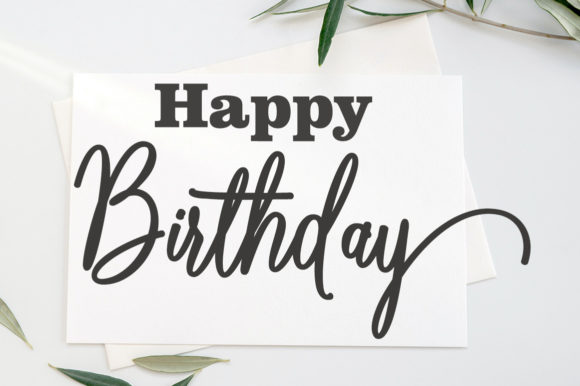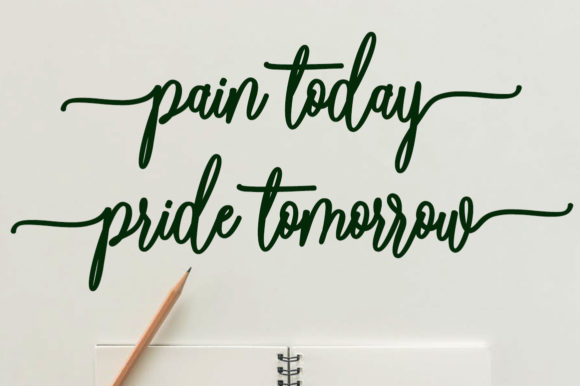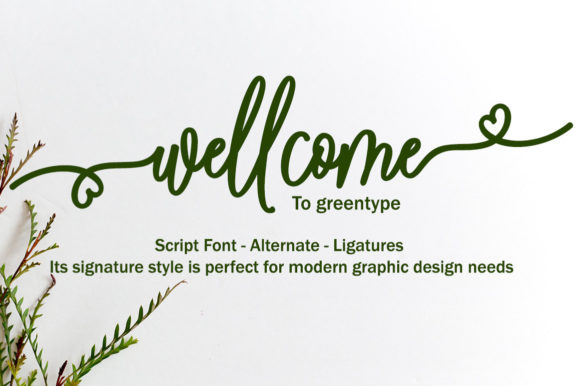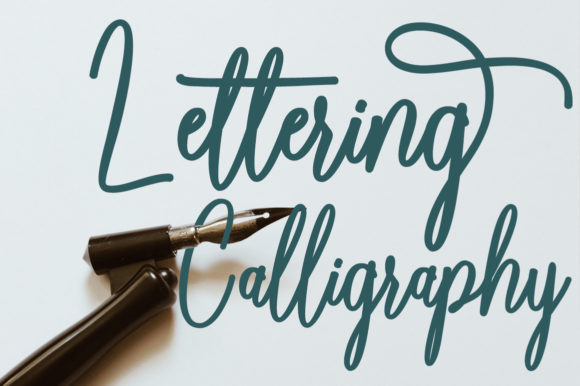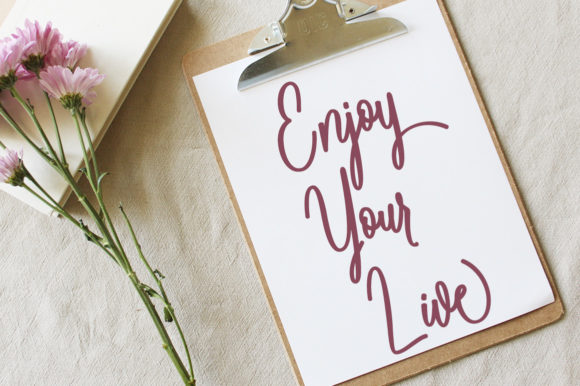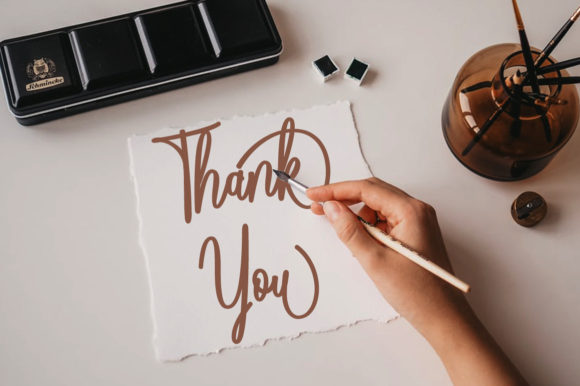
Bellasic Font
About Bellasic Font
Bellasic is a modern handwritten font that embodies readability, boldness, and style. Defined by its smooth curves, this font is a perfect choice for fashion branding or editorial designs. With its PUA encoding, accessing all the glyphs and swashes is effortless, allowing you to fully explore the font’s creative potential.
The readability of Bellasic ensures that your text remains clear and legible, even at smaller sizes. Its boldness adds a confident and impactful touch to your designs, making it suitable for various applications. Whether you’re creating logos, headlines, or editorial layouts, Bellasic brings a contemporary and stylish flair.
The smooth curves of Bellasic give it a sleek and sophisticated appearance. Each letter is crafted with precision, creating a cohesive and visually pleasing composition. The font’s modern handwriting style adds a personal and human touch, making it relatable and engaging for your audience.
Bellasic is particularly well-suited for fashion branding and editorial designs. It effortlessly complements the world of fashion with its stylish and contemporary aesthetic. Whether you’re working on lookbooks, magazine spreads, or social media graphics, Bellasic adds a touch of elegance and modernity.
In summary, Bellasic is a modern handwritten font that combines readability, boldness, and style. Its smooth curves and sleek design make it ideal for fashion branding and editorial designs. With its PUA encoding, you can easily access all the glyphs and swashes, expanding your creative possibilities. Embrace the versatility of Bellasic and let it elevate your designs with its bold and stylish presence.